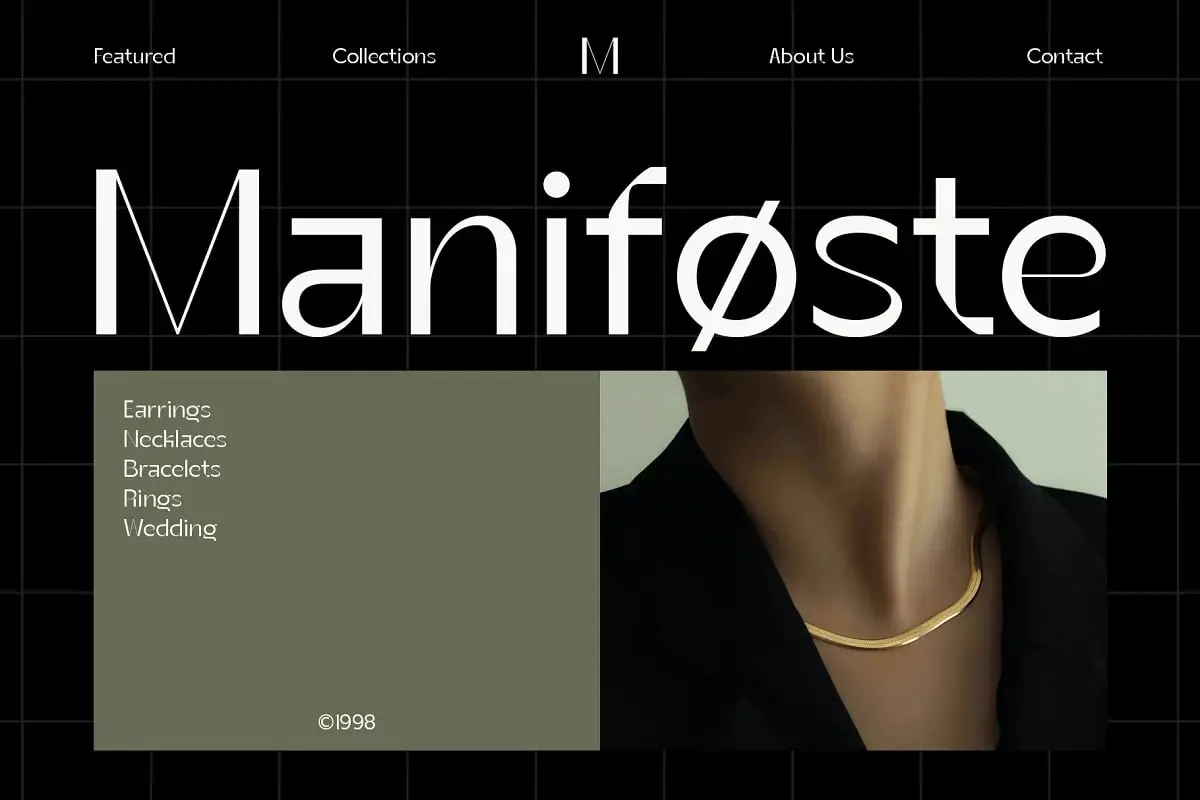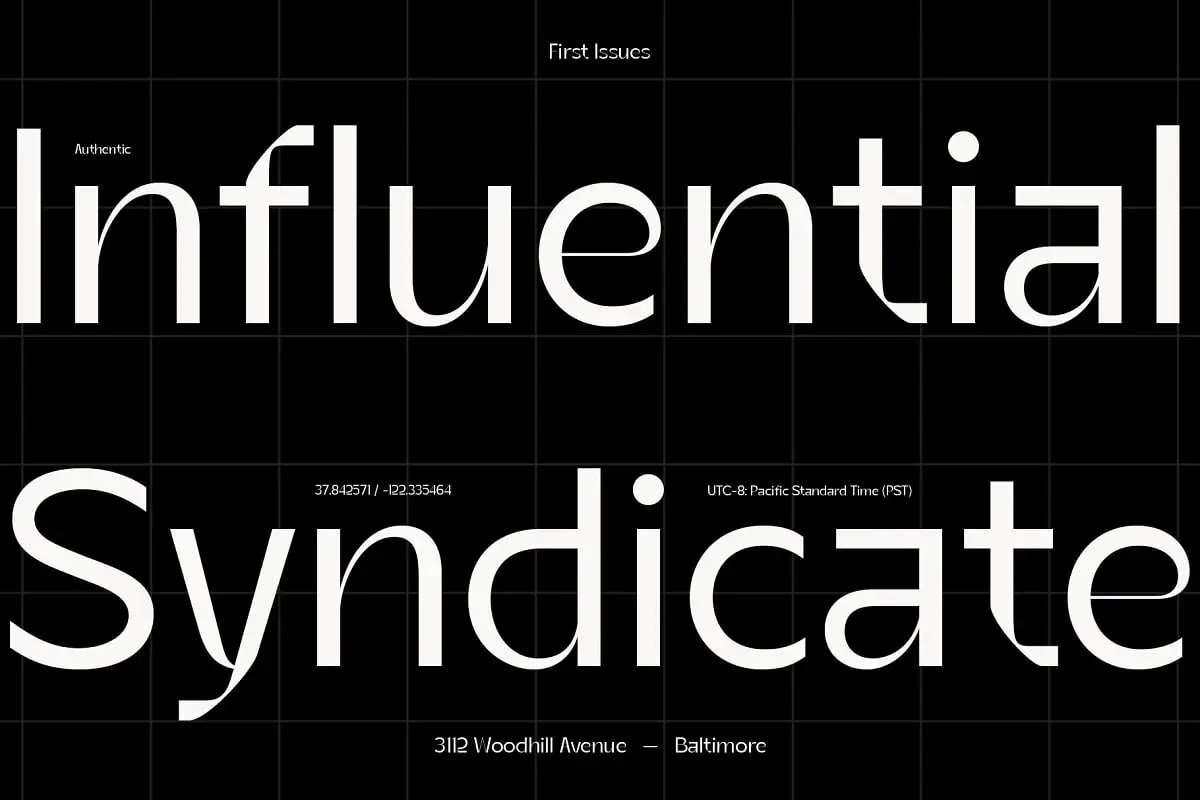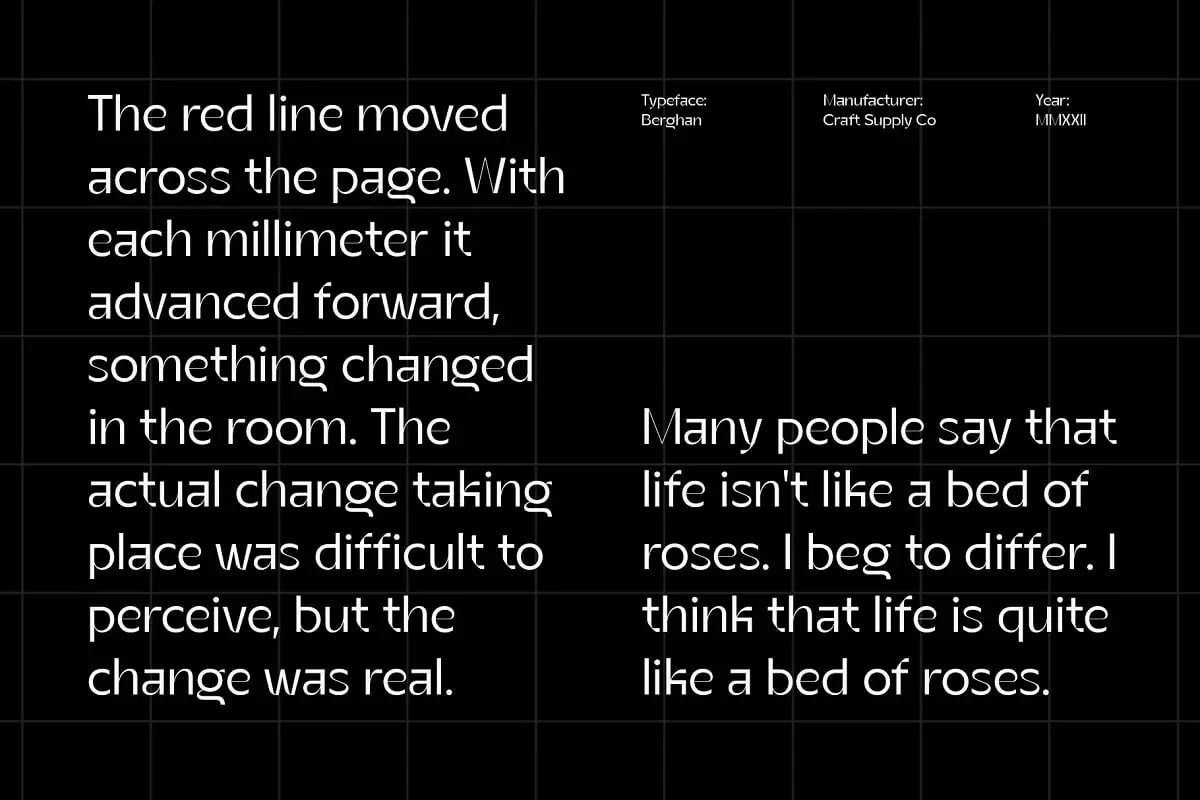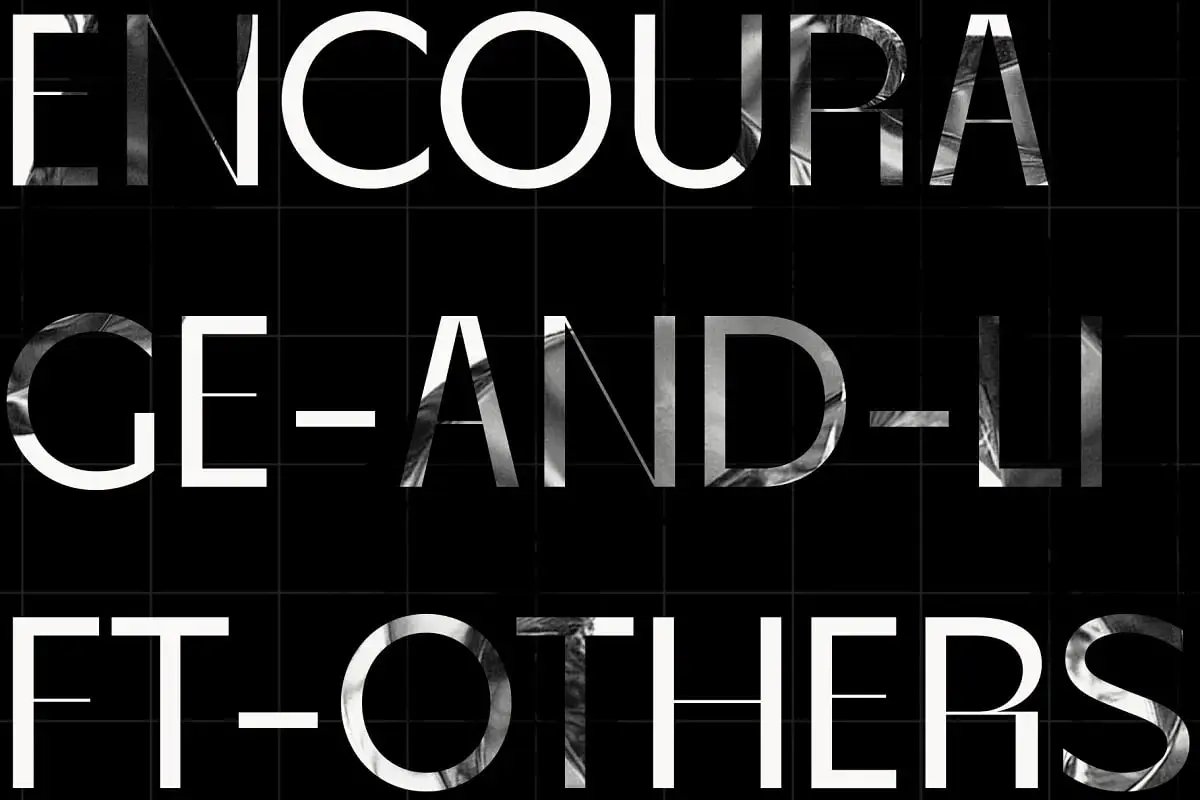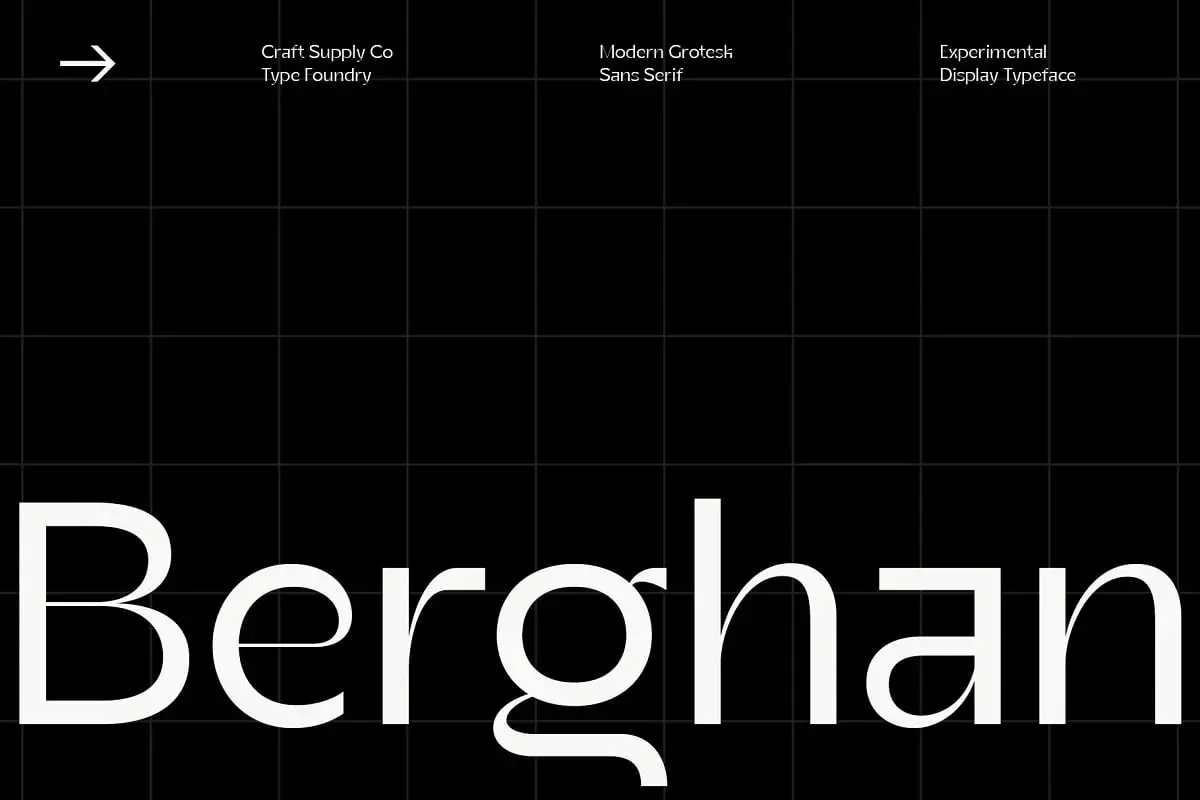
Berghan Font
Introducing the Berghan Font, a versatile typeface that combines elegance with modernity. With its clean lines and distinctive character, this font is perfect for a variety of design projects.
• Available in multiple weights for flexibility
• Stylish uppercase and lowercase letters
• Includes numerals and punctuation
This font is ideal for branding, logos, web design, and print materials. Its contemporary look makes it suitable for both personal and professional projects.